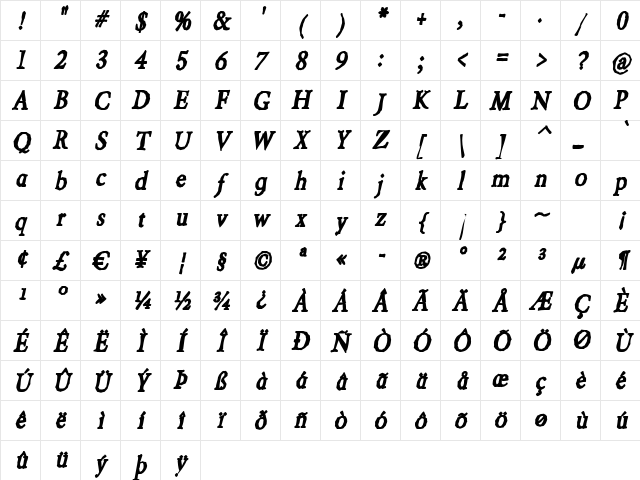
Berylium Ink Italic Free Font
Berylium Ink Italic
Design Context for Berylium Ink
Berylium Ink is a composed and adaptable typeface that performs quietly and consistently across a wide range of design contexts. The slanted form adds forward momentum and visual energy.
Pro Tip: Use Berylium Ink for emphasis, pull quotes, and subheadings where its slanted energy can add rhythm to the layout.